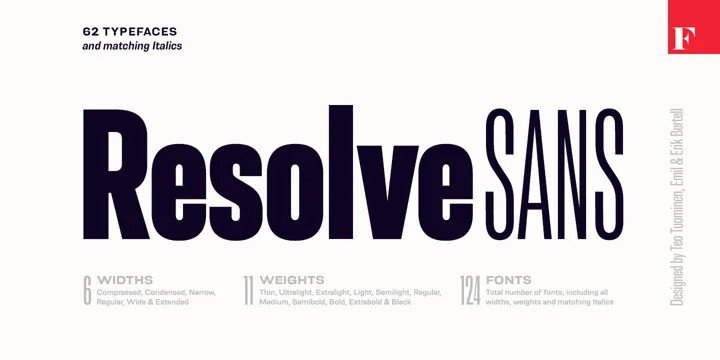
Resolve Sans Serif Font Demo
Resolve Sans Serif Font is a merge of modern and art deco styles. Its shown elegance, classy, ​​and glamour look as 1920’s visual trends, blended with geometrical sans serif in a functionality approach and complete font family styles.
This font is an extensive super family of 124 fonts: from compressed to extended, thin to black. Resolve Sans perfectly balances a universally neutral appeal with a distinct level of sophistication.
Effortless to adapt to any contexts of use, Resolve Sans is both a workhorse and a display font with impact and flair. As expected, all Resolve Sans fonts come with clever Open Type features such as built-in small capitals and multiple numeral styles.